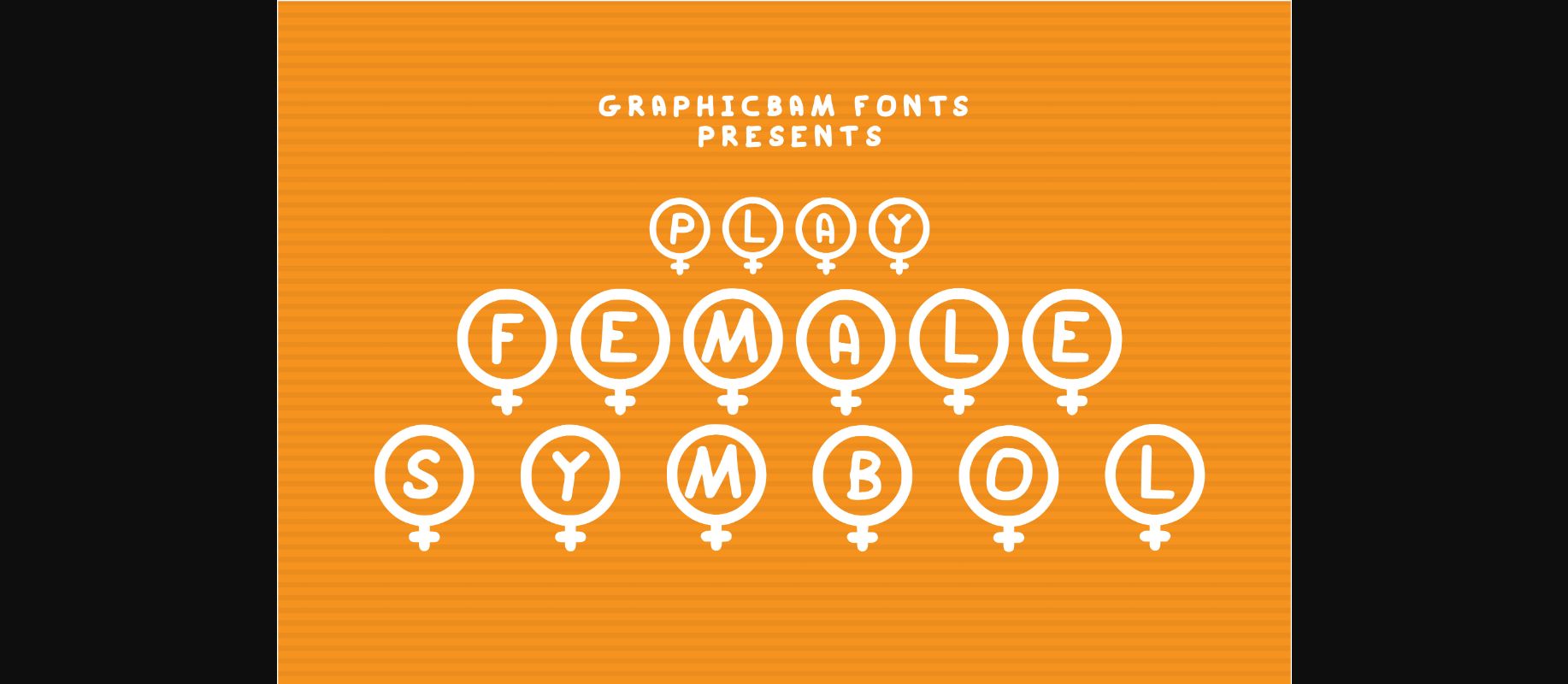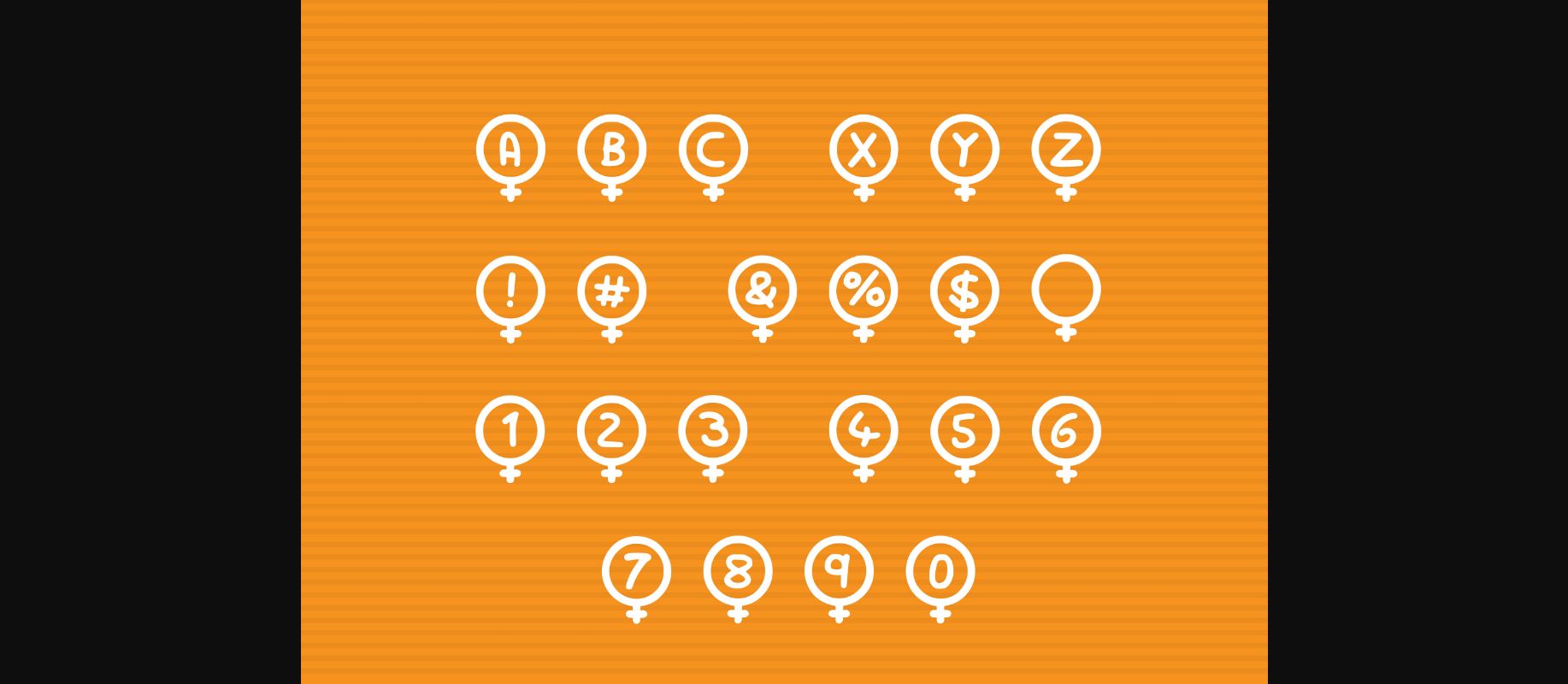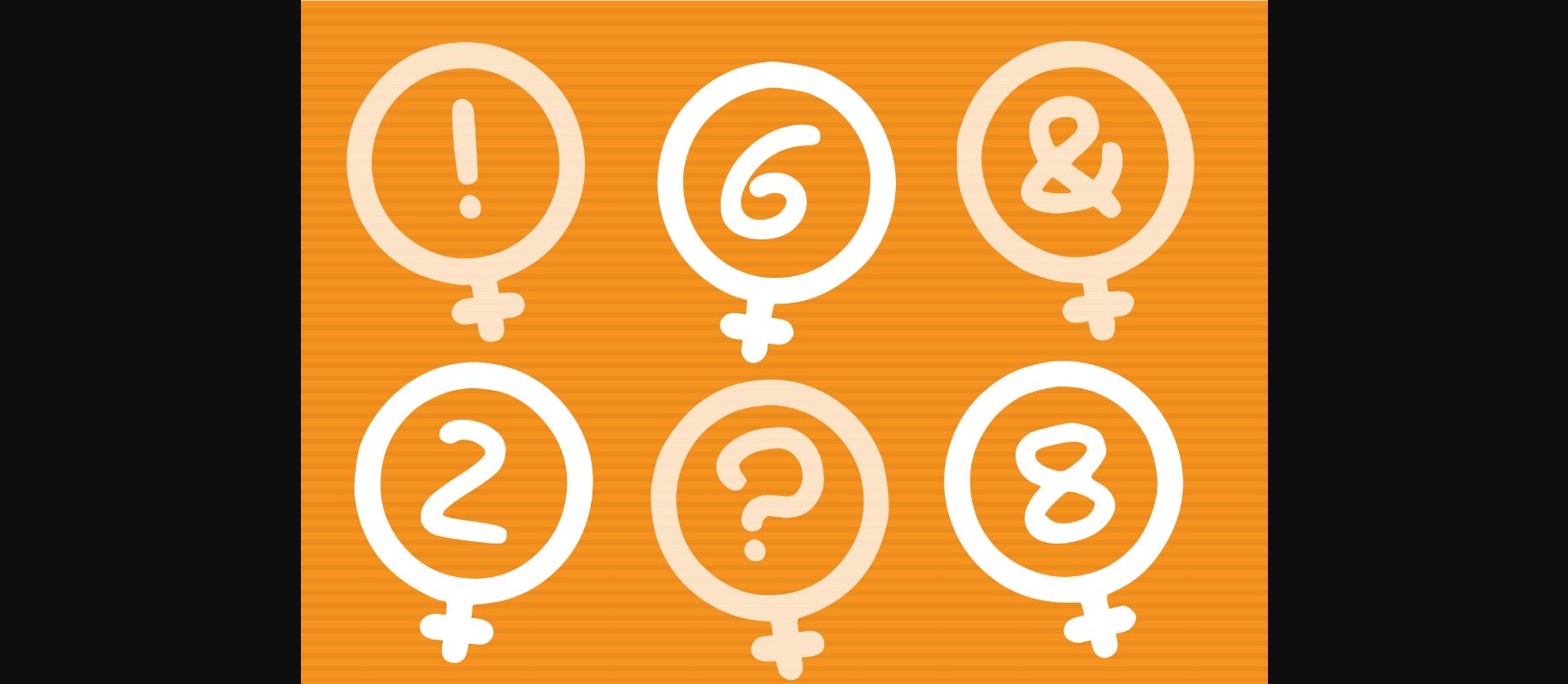
Play Female Symbol is definitely a feminine decorative font that will elevate the girl power feeling in your designs. Use it for projects that need unique decorative typography!